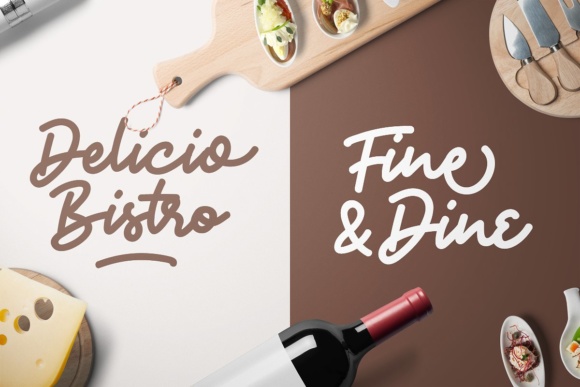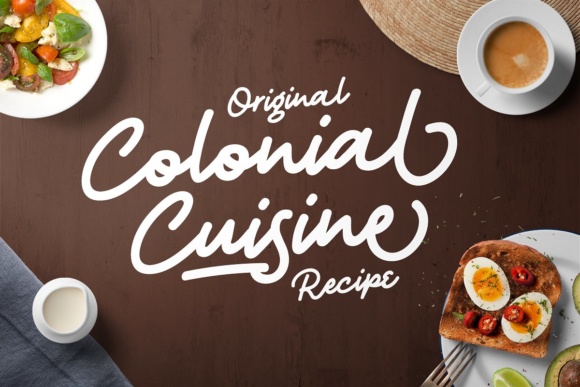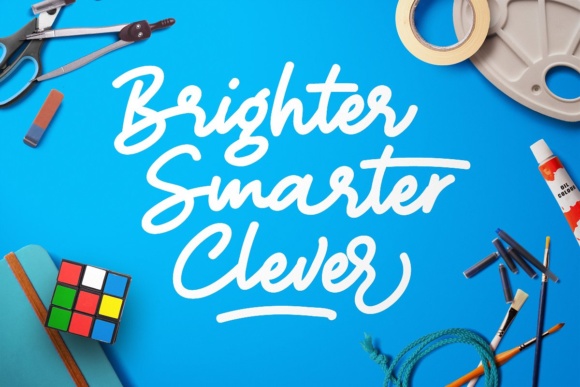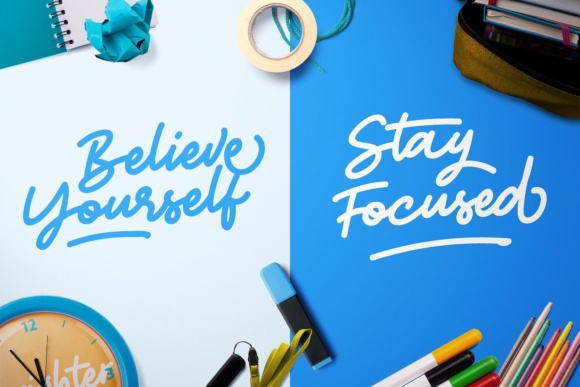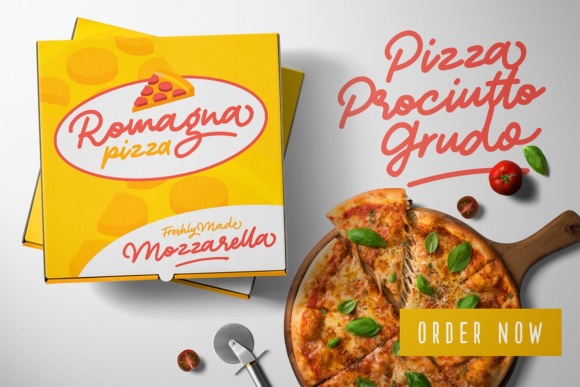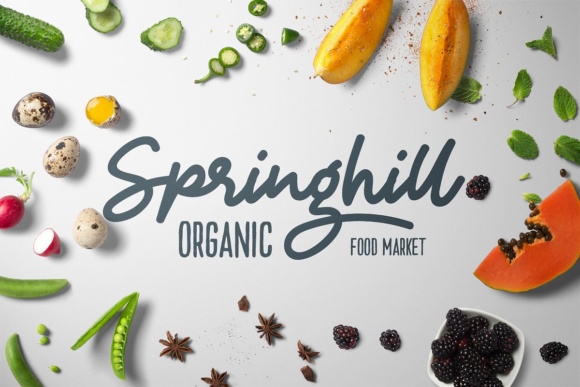
Introducing Brighter Script Font: The Bold, Casual, and Fun Choice for Designers and Crafters
Are you tired of using the same old fonts in your designs? Look no further than Brighter Script Font, a bold, casual, and fun script that is sure to make your work stand out from the crowd. With its unique personality and versatility, Brighter Script is the perfect choice for designers and crafters looking to add a touch of whimsy and flair to their projects.
What Sets Brighter Script Apart
Brighter Script is not your average script font. It consists of two types, a regular and a rough, giving you the flexibility to choose the perfect look for your design. The regular version is smooth and elegant, while the rough version adds a touch of texture and grit, making it perfect for designs that need a bit more edge.
Key Features of Brighter Script Font
- Bold and Casual: Brighter Script is a bold and casual script that is perfect for designs that need a bit of personality.
- Two Font Types: The font comes in two types, a regular and a rough, giving you the flexibility to choose the perfect look for your design.
- Fun and Whimsical: Brighter Script has a fun and whimsical feel that is sure to add a touch of personality to your designs.
- Perfect for Designers and Crafters: Whether you’re a designer or crafter, Brighter Script is the perfect choice for anyone looking to add a bit of flair to their work.
Uses for Brighter Script Font
Brighter Script Font is perfect for a variety of design projects, including:
- Signs and Banners: Add a touch of personality to your signs and banners with Brighter Script.
- Social Media Graphics: Make your social media graphics stand out with the bold and casual look of Brighter Script.
- Invitations and Party Decor: Add a touch of whimsy to your invitations and party decor with Brighter Script.
- Crafting Projects: Use Brighter Script to add a personal touch to your crafting projects, such as scrapbooking and card making.
Tips for Using Brighter Script Font
Here are a few tips for using Brighter Script Font in your designs:
- Use it as a Headline Font: Brighter Script is perfect for use as a headline font, where its bold and casual look can really make an impact.
- Pair it with a Simple Font: Pair Brighter Script with a simple font, such as a sans serif font, to create a nice contrast and make your design stand out.
- Experiment with Colors: Don’t be afraid to experiment with different colors and textures to really make your design pop.
Brighter Script Font is a bold, casual, and fun script that is sure to add a touch of personality to your designs. With its two font types and whimsical feel, it’s the perfect choice for designers and crafters looking to make their work stand out from the crowd. So why not give Brighter Script a try and see the difference it can make in your designs?
Whether you’re a seasoned designer or just starting out, Brighter Script Font is a great addition to your font collection. So go ahead, get creative, and make your designs shine with Brighter Script!